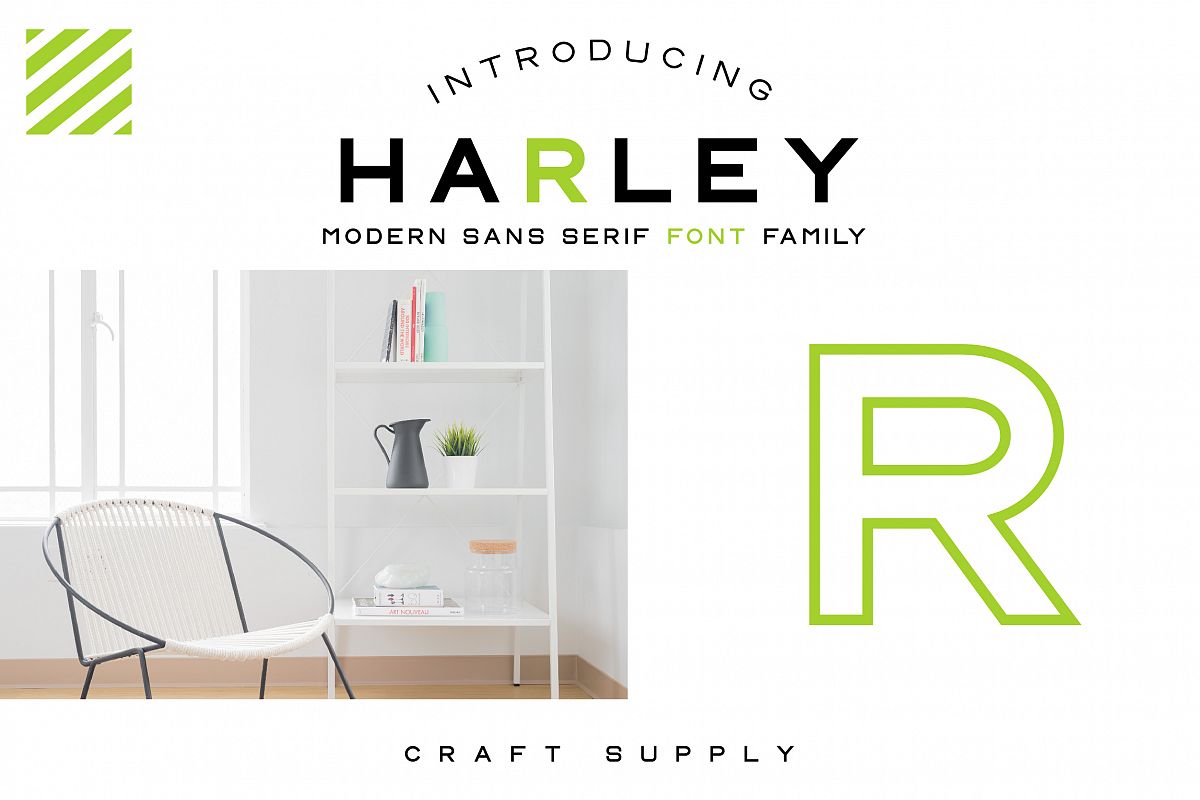
CS Harley Font Family
Introducing CS Harley Font Family includes 2 Style & 3 Weight Fonts. It would be a perfect choice to design posters, headings, letterhead, merchandise, logos, t-shirts, magazine, banner, and many more.
1. CS Harley Regular
2. CS Harley Semibold
3. CS Harley Bold
4. CS Harley Outline
5. CS Harley Semibold Outline
6. CS Harley Bold Outline